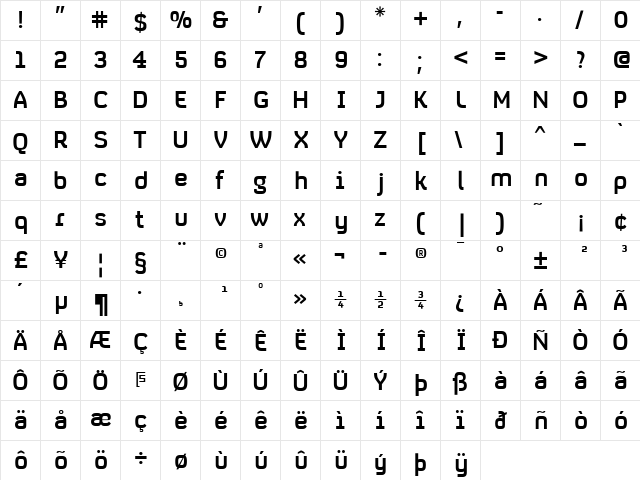
LikeBBC4Headline Regular Font Preview
LikeBBC4Headline Regular
LikeBBC4Headline Regular Font Details
Design Context for LikeBBC4Headline Typeface
LikeBBC4Headline takes a measured approach to typography — its balanced proportions and neutral character make it a reliable workhorse for both digital and print work.